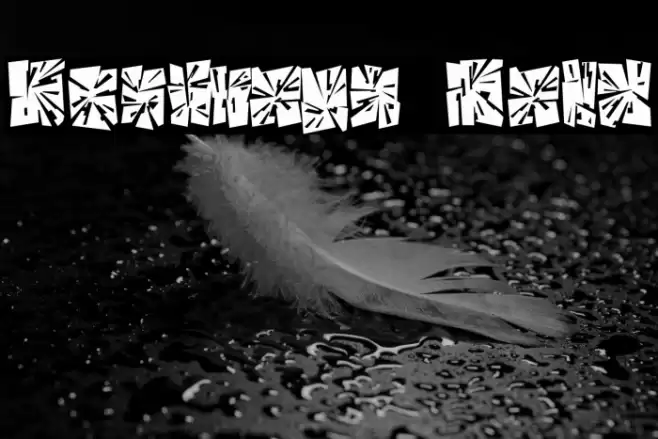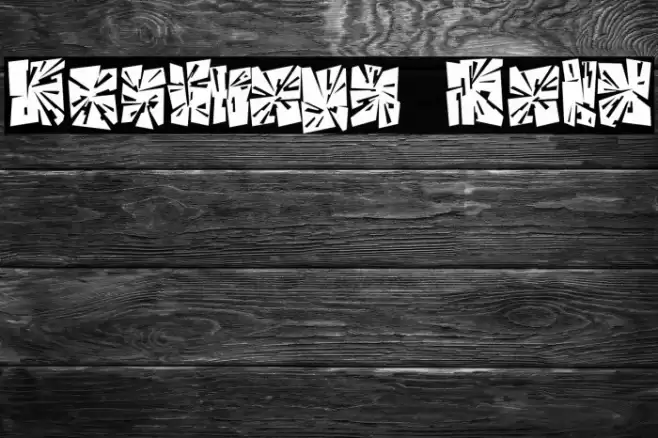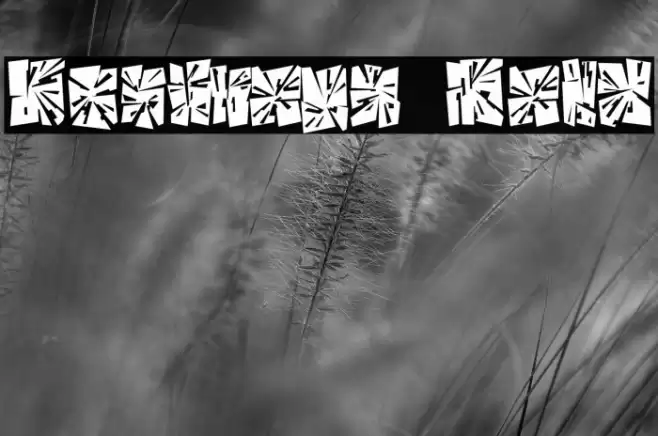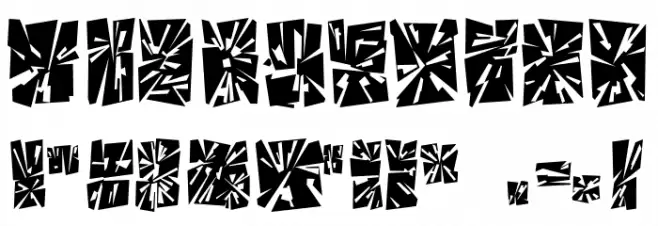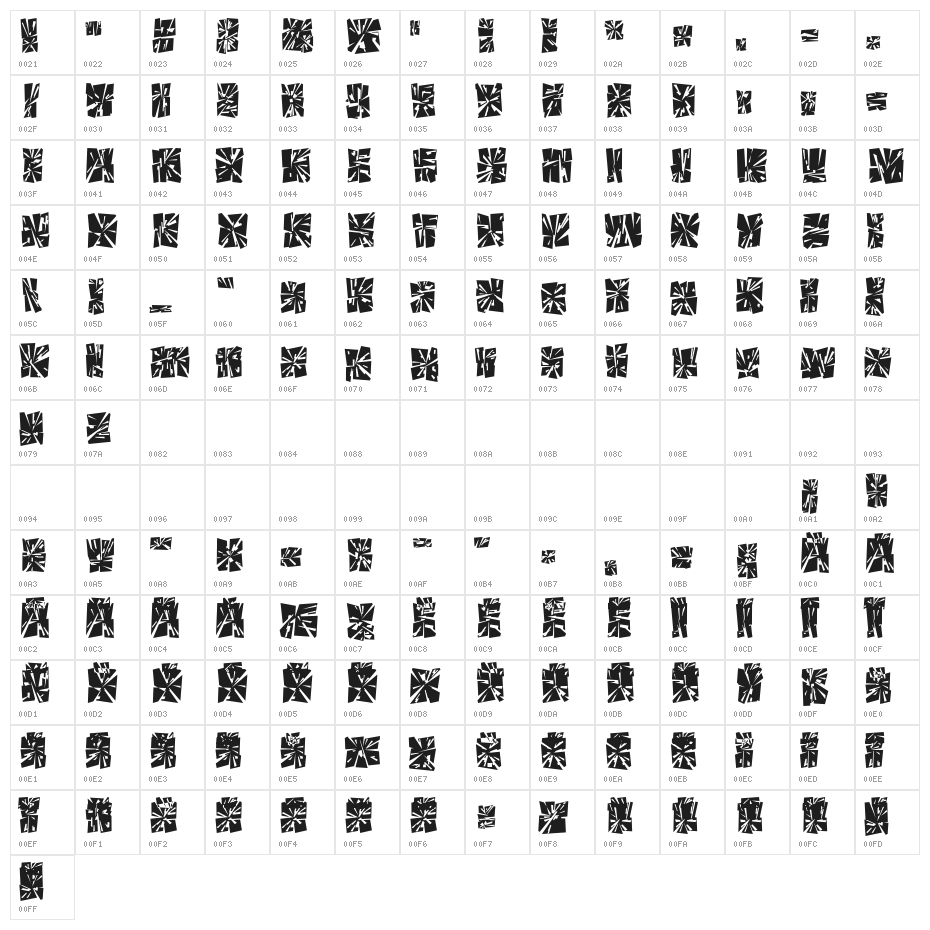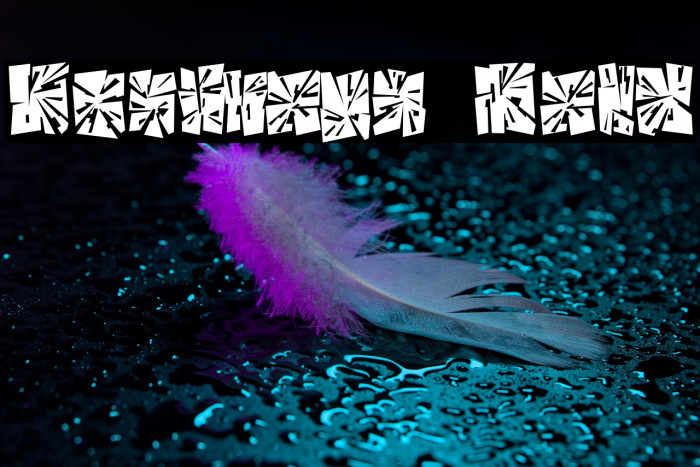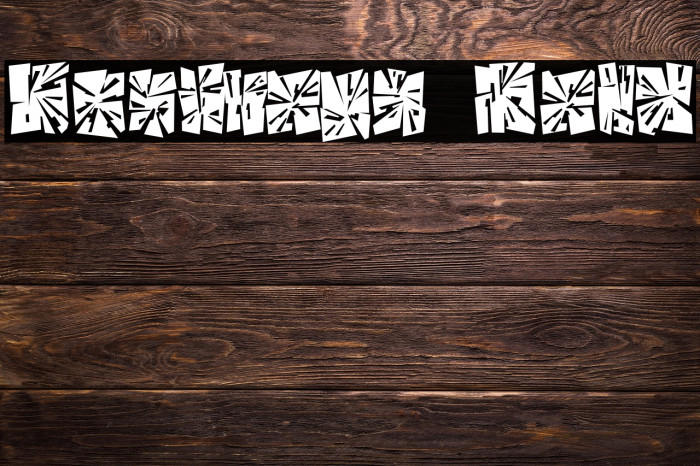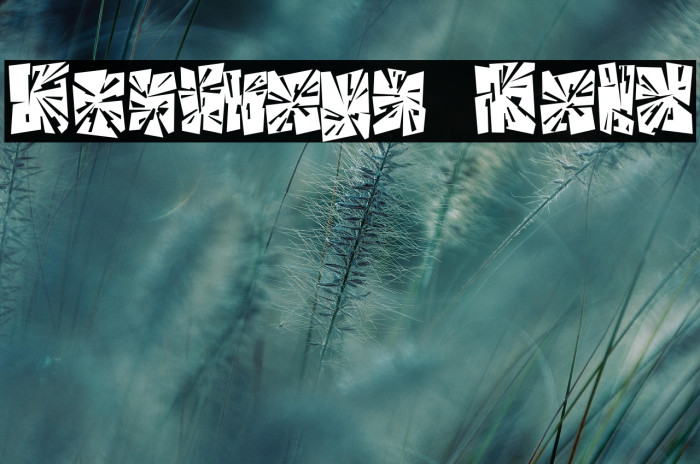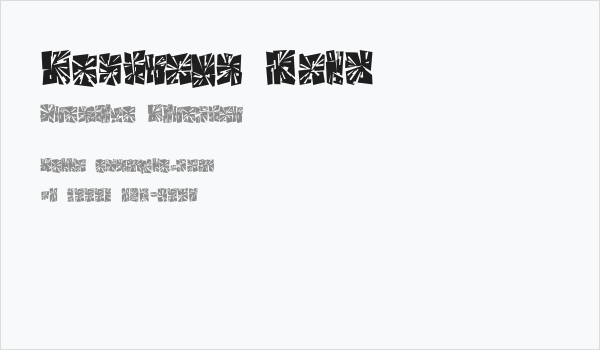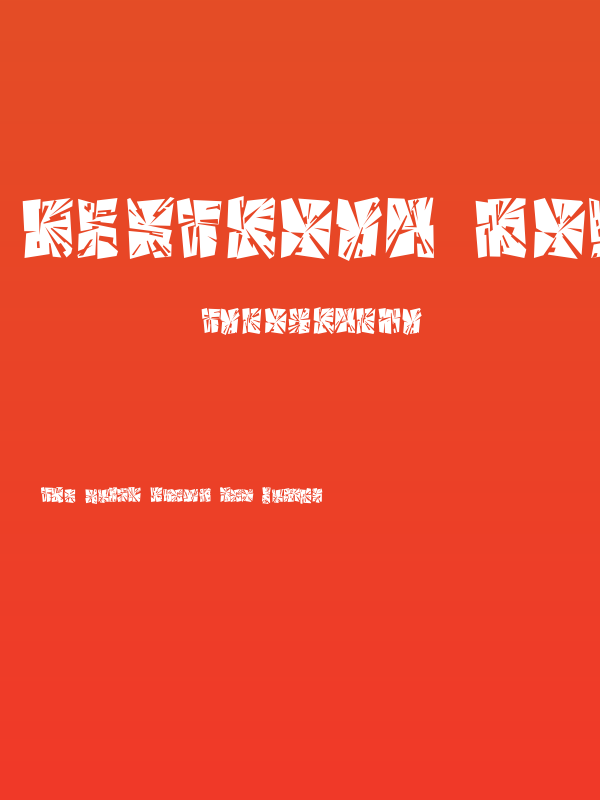
Destroya Bold Font
Destroya Bold Description
This font features a bold and dynamic design with a shattered, fragmented appearance. Each character is composed of sharp, angular shapes that create a sense of movement and energy. The style is highly decorative, making it stand out with its unique and edgy look. The characters are tightly packed, enhancing the boldness and impact of the text. This font is ideal for projects that require a strong visual statement, such as posters, album covers, or branding for edgy and modern products.
A bold, fragmented font with a dynamic and edgy appearance from Uncategorized fonts.
- Proposed Projects: Ideal for posters, album covers, and edgy branding projects.
- Character Spacing: Tight
- Overall Style: Modern, Decorative